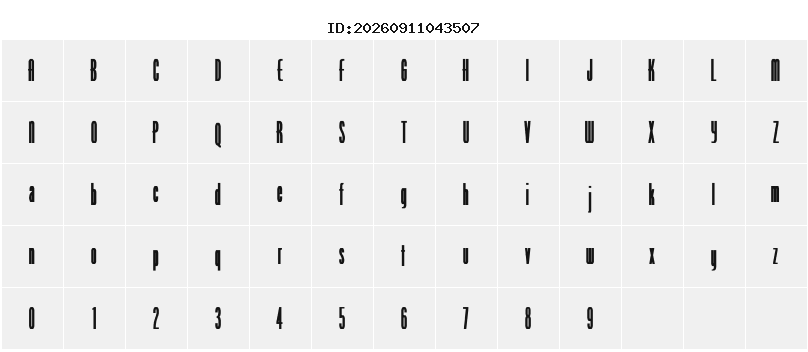
Venus-Normal Bold Preview
About Venus-Normal Bold.ttf
Venus-Normal Bold.ttf is a modern, elegant sans-serif font designed for ultimate readability and visual harmony. Perfect for branding, headlines, web design, and print materials.